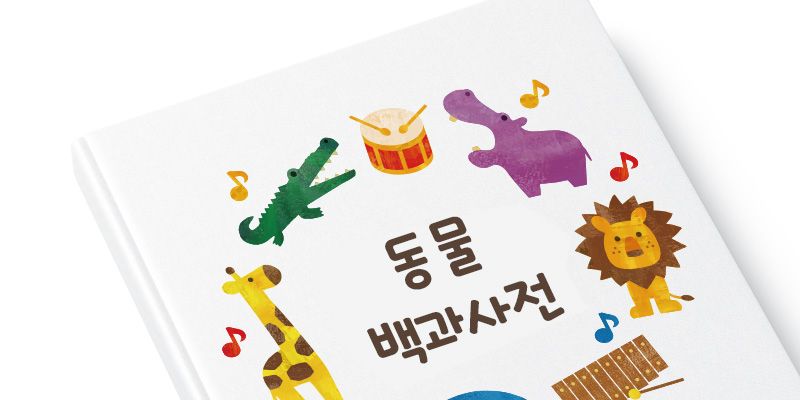
Rix Hello Twenty Font Free Download
Rix Hello Twenty Font Free Download is a modern and playful sans-serif typeface designed to bring a fresh, youthful energy to your creative projects. With its rounded shapes, smooth curves, and clean structure, this font is perfect for branding, lifestyle blogs, social media graphics, packaging, and digital content that aims to feel friendly and approachable.
Its casual yet stylish design makes it versatile for both headers and body text, while maintaining high readability across all screen sizes. Whether you're working in Adobe Illustrator, Canva, or Figma, Rix Hello Twenty offers seamless integration into your design workflow.